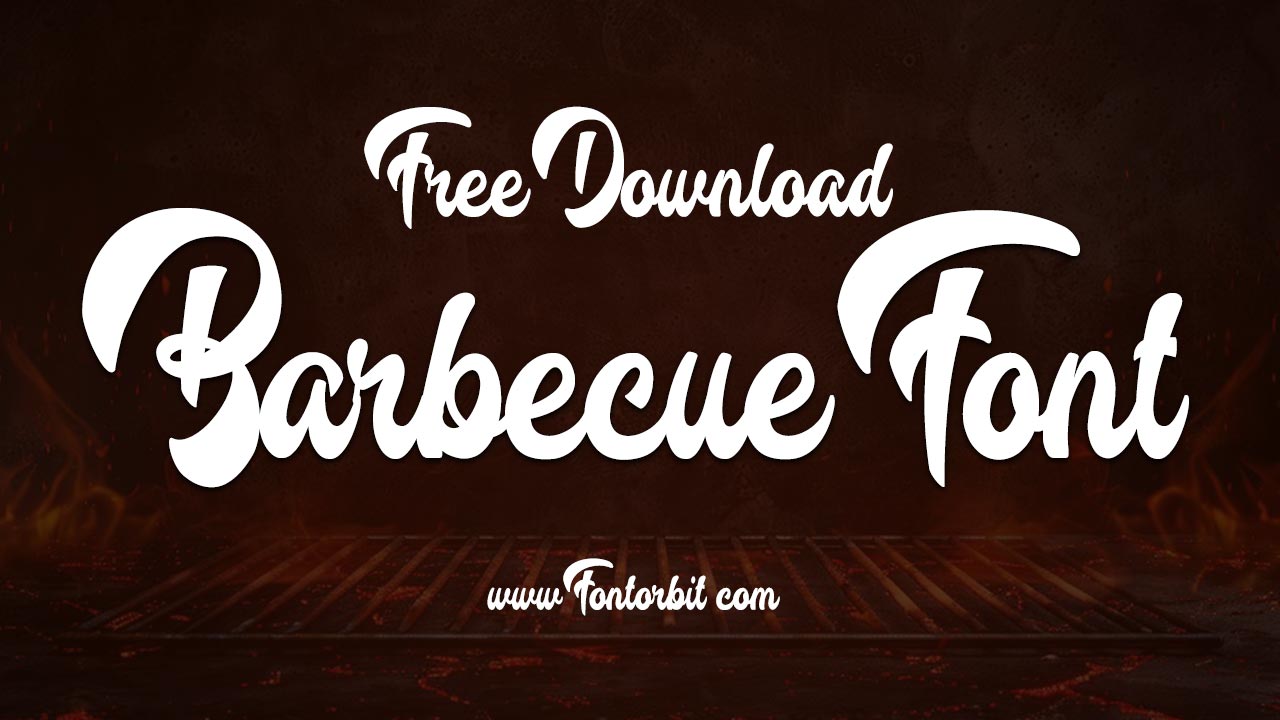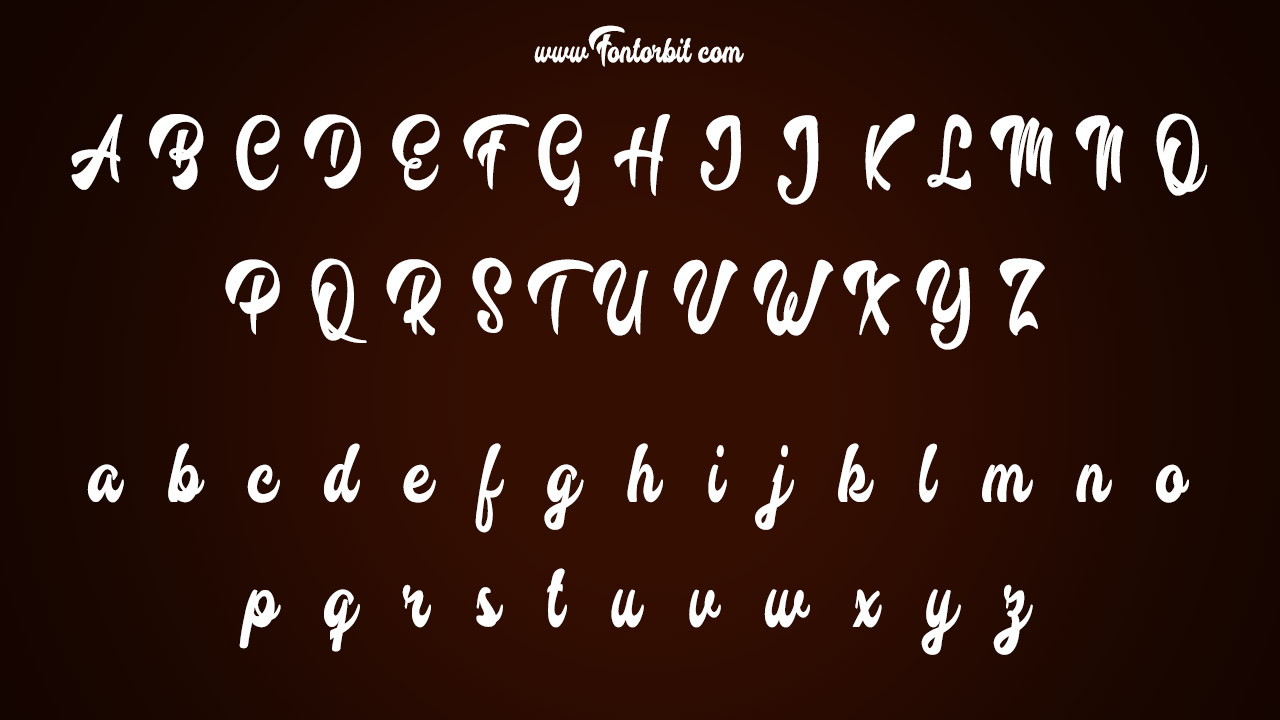
The Barbecue font is a playful and eye-catching typeface designed to capture the fun and festive spirit of barbecue gatherings. Created by Billy Argel Fonts and published in November 30, 2018, this font belongs to the display family and is perfect for adding a touch of whimsy to any barbecue-themed design.
The Barbecue family is characterized by its bold, rounded letters that evoke a sense of casual enjoyment. Here’s a list of available styles in this family:
Barbecue Regular
Notable Uses Of Barbecue Font
This font is ideal for various barbecue-related occasions, including:
- Event Invitations
- Menu Design
Barbecue font is best suited for:
- Promotional Material
- Merchandise
The Barbecue font is a versatile and vibrant choice for any design project that aims to convey a fun and informal vibe. Its unique style is perfect for adding character to BBQ-themed materials and events.